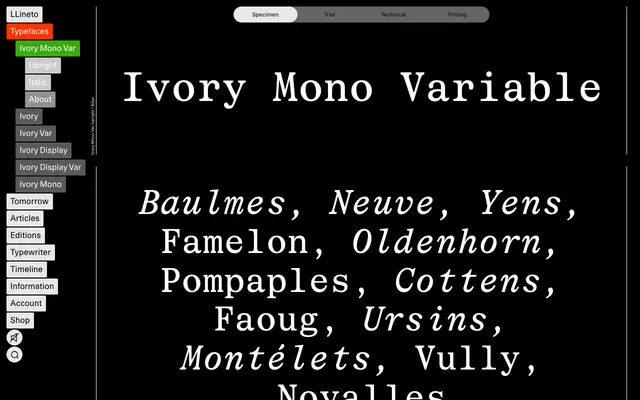
LL Ivory Mono Var
A monospaced variable cut of Aurèle Sack's serif family, originally commissioned for Vogue Hommes Paris and rooted in 19th-century American wood type.
LL Ivory began as a titling commission for Vogue Hommes Paris in 2016, drawing on American wood type and poster fonts before Sack's strict grid-based method pushed it into its own distinct territory. The Mono Var subset brings three monospaced cuts into a variable format, pairing the family's sturdy, low-contrast serifs and geometric construction with the fixed-width spacing more common to code or editorial contexts. Developed over several years and tested across art catalogues, magazines and identities, the family has the surgically precise quality characteristic of Sack's work at NORM and beyond.
Rooted in 19th-century American wood type and poster fonts, LL Ivory is a high-contrast serif with pronounced shapes; the Mono Var cut extends the family into monospaced territory while retaining the same geometric rigour and sturdy character.